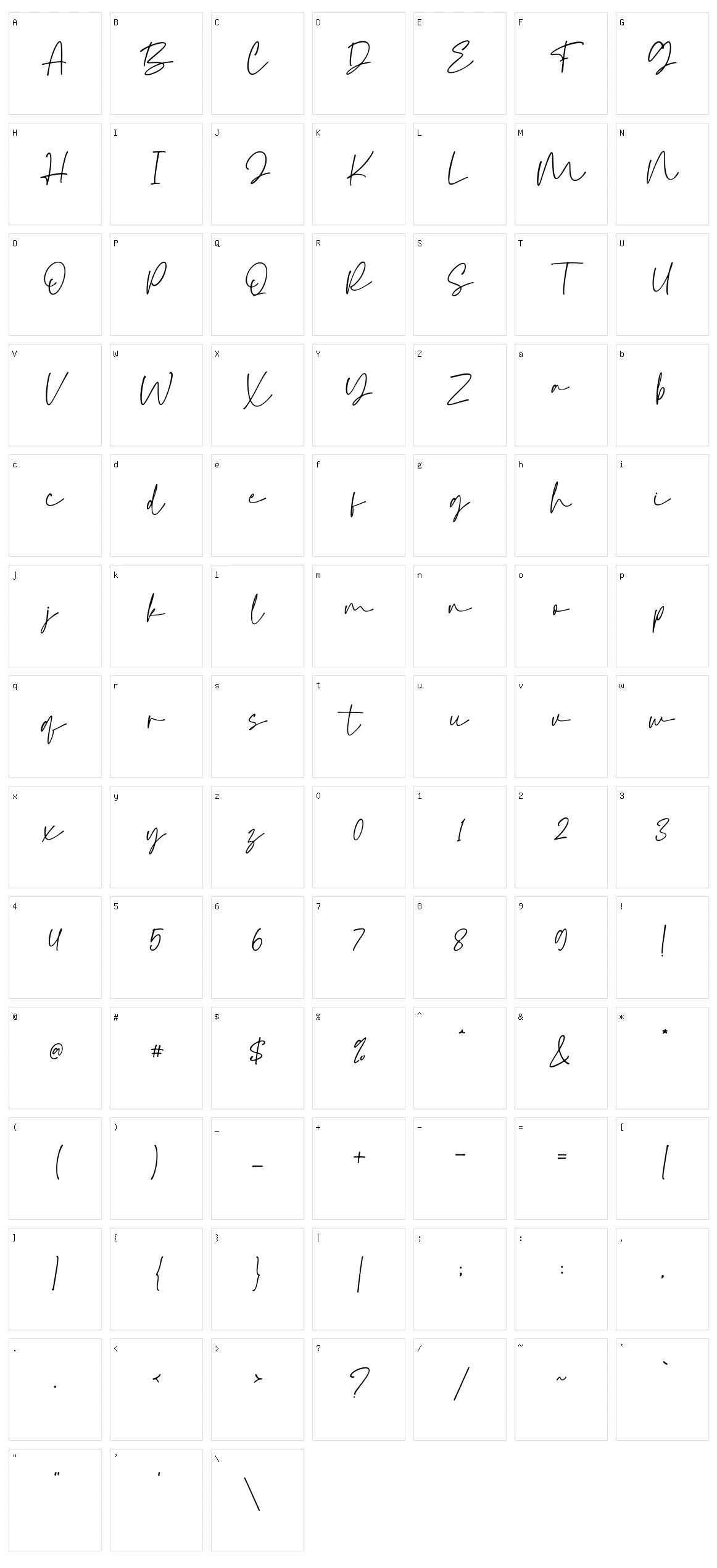
The free font Sarcoline is carefully designed by Pen Culture, showcasing a thoughtful balance of creativity and usability and falls under the Script font style. When you download the ZIP file, it contains only 493.45 KB of font files, making it lightweight and quick to download. Please review the license details below to understand permitted usage and distribution rights. If license information is not available, we recommend using this font for personal projects only or contacting the author directly for commercial usage permissions.